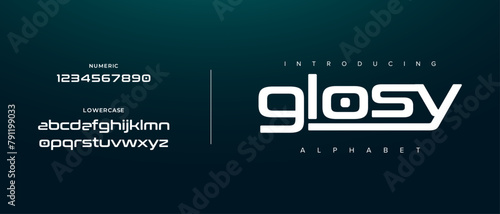
Glossy creative simple modern urban alphabet font. Digital abstract futuristic, logo, music, sport, minimal technology typography. Simple numeric vector illustration